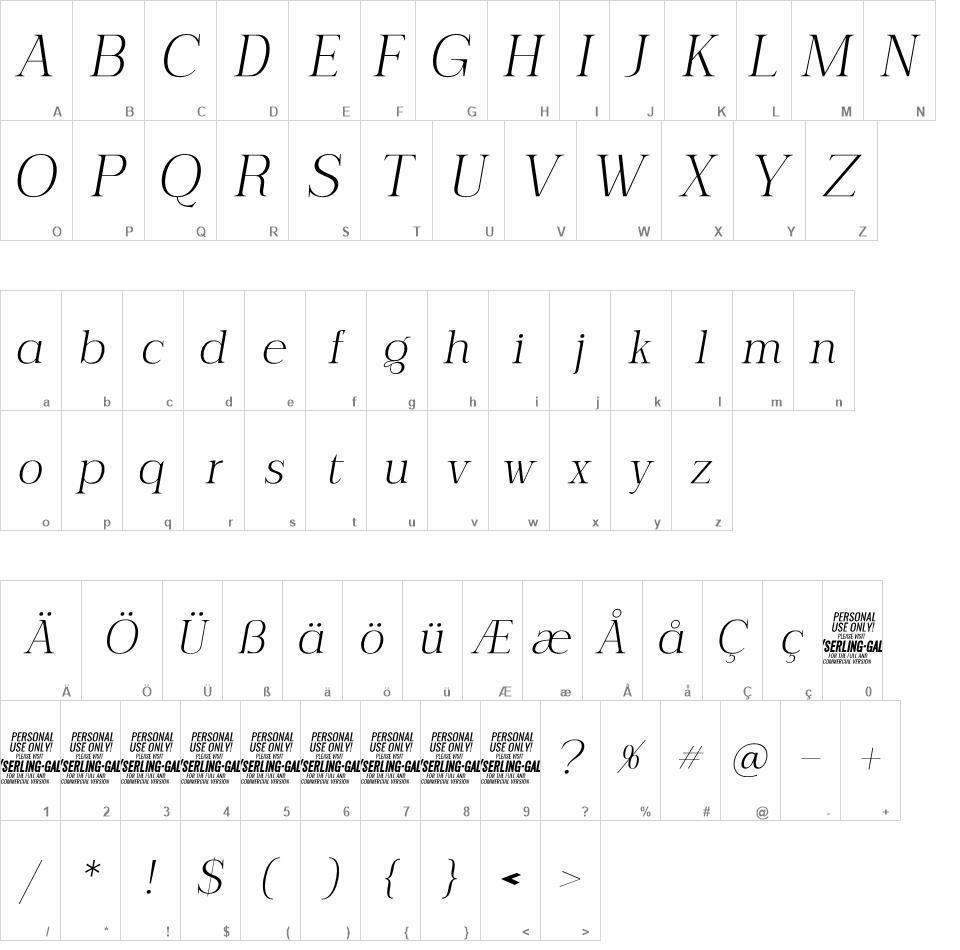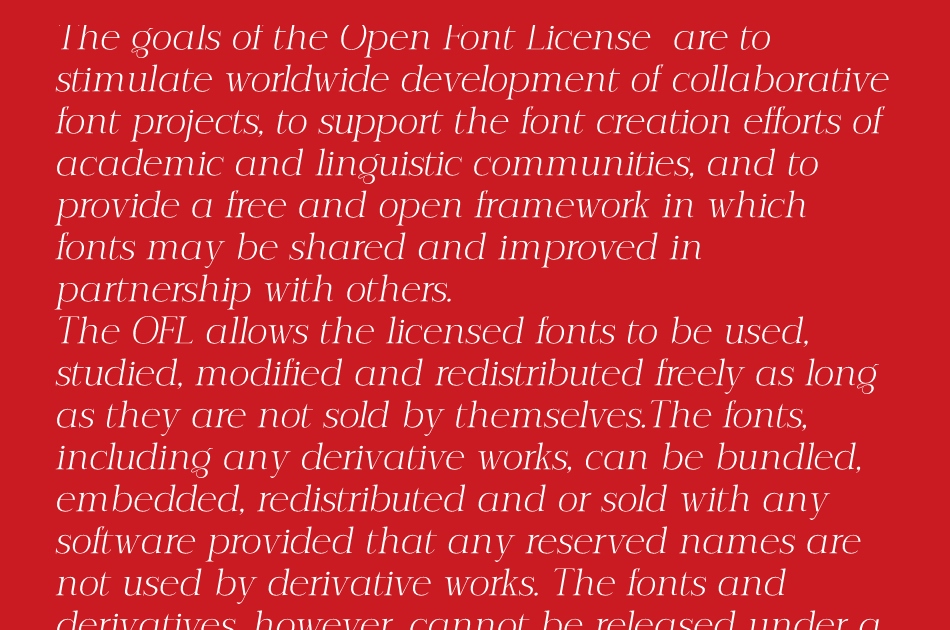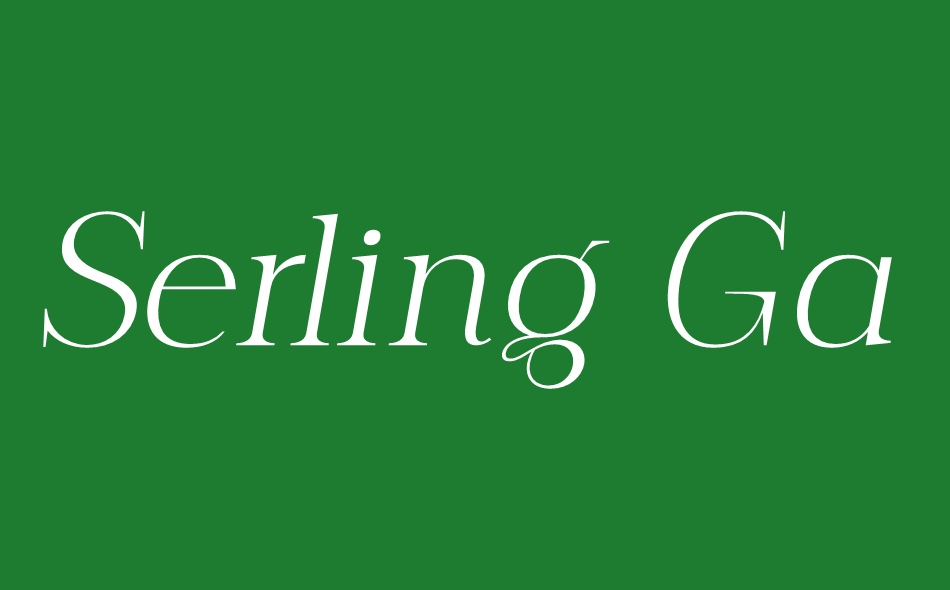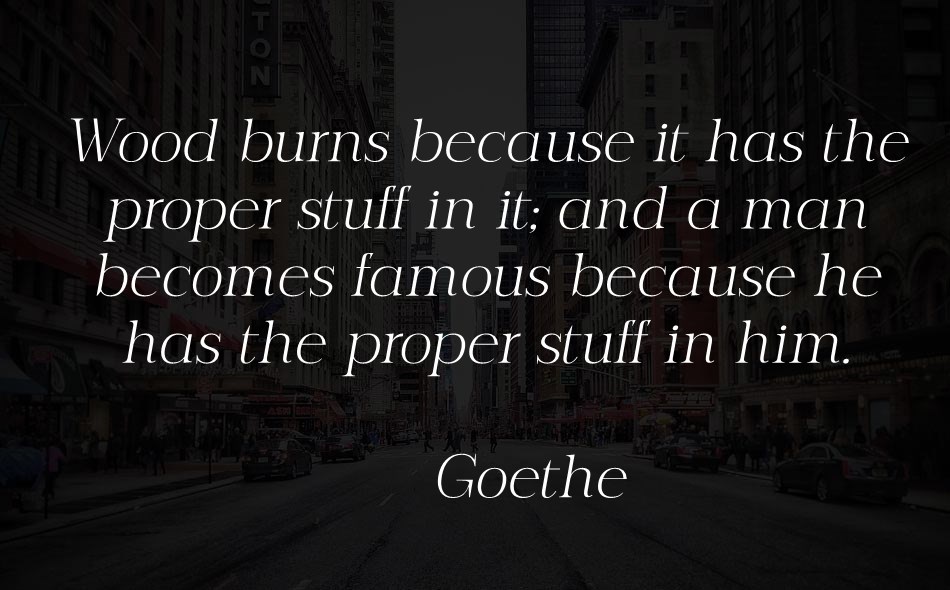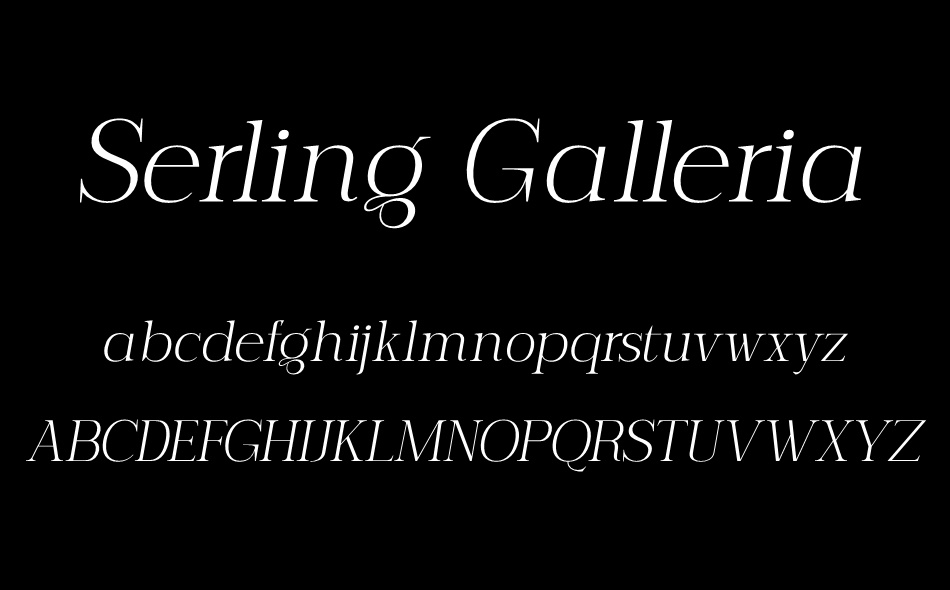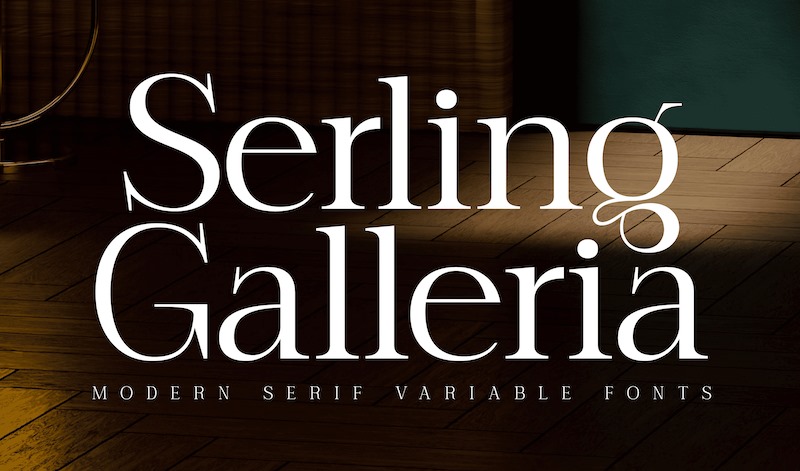
Serling Galleria font
Serling Galleria is a classy, classic serif font that exudes an air of fine art and high-end creativity. With its clear, legible letterforms and modernist inventiveness, Serling Galleria brings a touch of strict creativity to your designs, making them stand out in sophistication.
Serling Galleria font
Serling Galleria is a classy, classic serif font that exudes an air of fine art and high-end creativity. With its clear, legible letterforms and modernist inventiveness, Serling Galleria brings a touch of strict creativity to your designs, making them stand out in sophistication.
This versatile font family is perfect for projects that require a refined, elegant aesthetic. With its variable font feature, you have the flexibility to fine-tune the font to your specific needs and create a truly bespoke typographical experience, or use the pre-defined font styles: Thin, Thin Italic, Extra Light, Extra Light Italic, Light, Light Italic, Regular, Regular Italic, Medium, Medium Italic, SemiBold, SemiBold Italic, Bold, Bold Italic, Extra Bold, Extra Bold Italic, Black, Black Italic
The diverse styles in the Serling Galleria font family provide unmatched versatility, allowing you to adapt your typography to various design contexts and moods seamlessly. With this array of weights and styles at your fingertips, you can effortlessly create a visual hierarchy, emphasize key elements, and establish a cohesive, engaging design language across your creative projects.
Also includes a variable font! Only one font file, but the file contains multiple styles. Use the sliders in Illustrator, Photoshop or InDesign to manually set any weight and width. This gives you not only the predefined styles, but instead more than a thousand ways to customize the type to the exact look your project requires.
Built with advanced OpenType functionality, Serling Galleria ensures top-notch quality and provides you with full control and customizability. It includes stylistic and contextual alternates, ligatures, and other features to make your designs truly unique and tailored to your needs.
Serling Galleria offers extensive lingual support, covering all Latin-based languages, from Northern Europe to South Africa, from America to South-East Asia. It contains all the characters and symbols you'll ever need, including all punctuation and numbers.